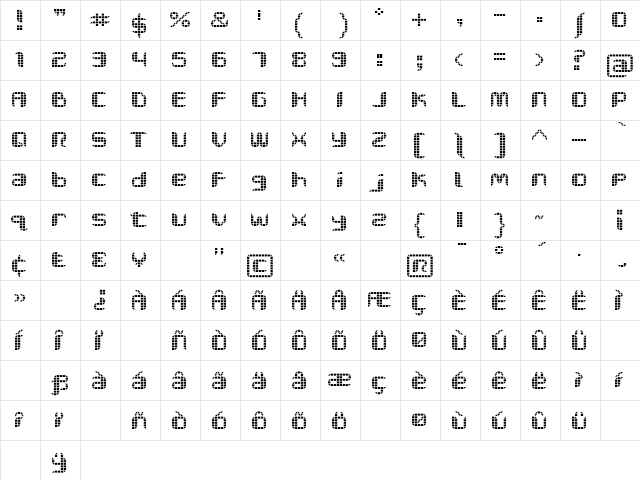
Metalhead Regular
Design Context for Metalhead Typeface
Metalhead is a composed and adaptable typeface that performs quietly and consistently across a wide range of design contexts.